Since 2017, Pooja has been conducting guided typographic tours that reacquaint participants with their neighbourhoods from the vantage point of signage and letterforms. These walks are an excellent way for designers and non-designers alike to learn about how typography and lettering in public spaces shape our experience of them, and how they are, themselves, a product of social, cultural, even legal developments.
Men of Faith, Letters of Commerce: A Typographic Tour of M.G. Road
Using the signs and landmarks of M.G. Road as provocation, Pooja talked about the myriad letterforms on display on shop and building fronts — from fast disappearing neon signs to ubiquitous sans serifs and multiscript branding — and discuss their historical and cultural legacies. Together with that, she reminded participants of snapshots of printing history and initiatives driven by colonial missionaries whose presence is still felt at M.G. Road. This type walk was a public event organised by the Bangalore International Centre.
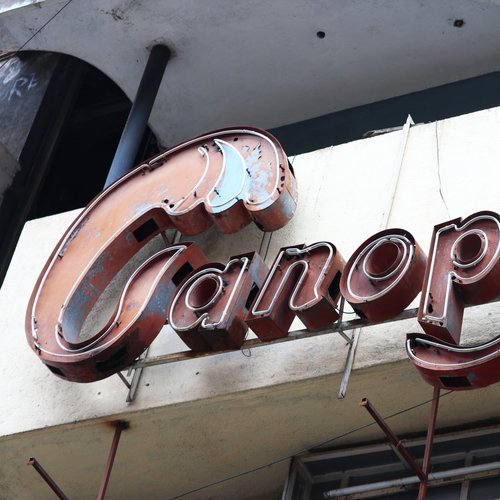
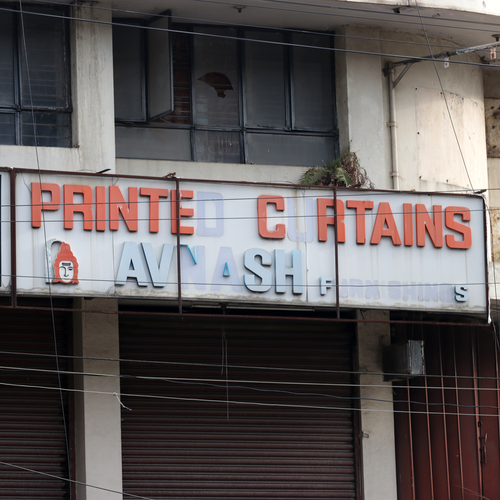
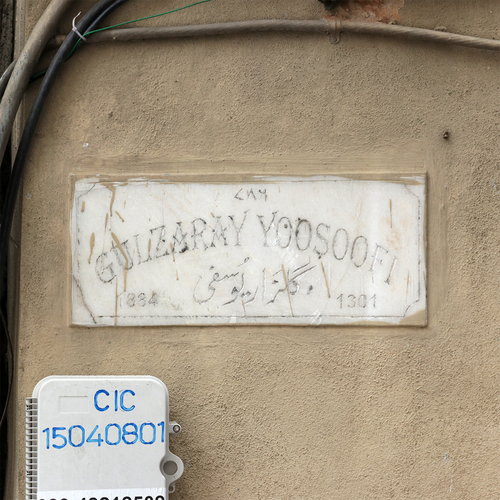
M.G. Road Type Walk
With stores that date back over a century, the erstwhile South Parade has a wealth of signs that help us see how the typographic character of Bangalore is changing. From photographers to newspaper publishers, banks to saree emporia, restaurants to bookshops — the wealth of signs in a striking variety of materials are a visual treat, which is easily missed in the cacophony of this busy market street. In this type walk organised by OwnPath, Pooja helped participants explore neighbourhood anew, see its multilingual signs in a whole new light, and discuss the beginnings of missionary-led printing in the city.
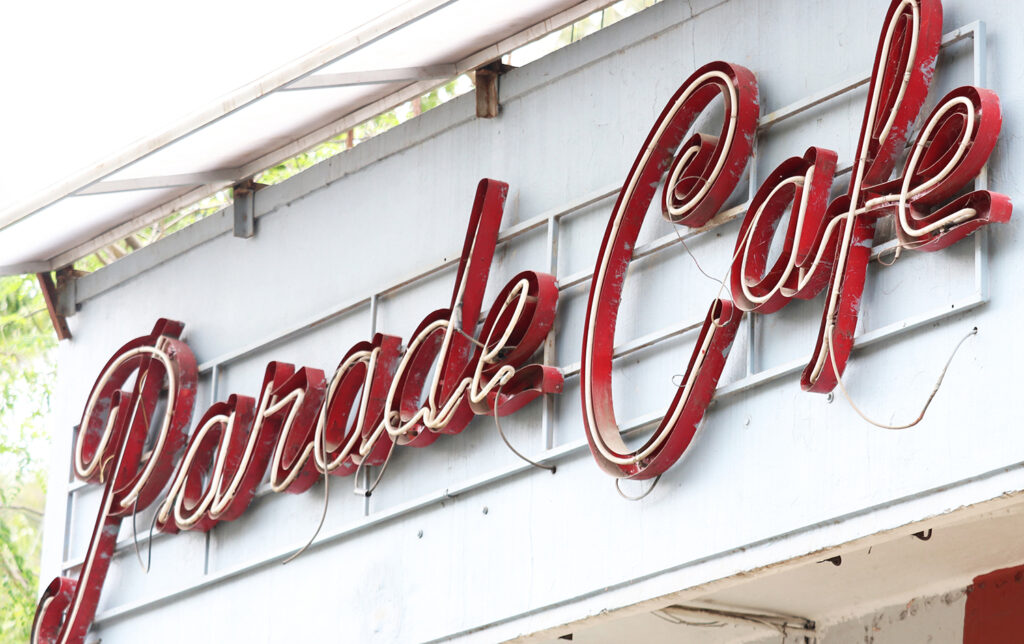
Nicholson Cemetery Type Walk
In this walk, participants took a stroll in Delhi’s Nicholson Cemetery to look at some of the oldest Latin letters to be seen in the city: ranging in styles from blackletter to grotesque to tuscan, some of them dating back almost two centuries. As the group spotted letters on gravestones, Pooja talked about the stories of the typographic styles, as well as the stories of those who are buried here. The protagonists, among others, include John Nicholson, on whom the cemetery is named; American founding father, Benjamin Franklin; and of course, the man who introduced moveable type to Europe, Johaness Gutenburg. This walk is a unique way to learn about the history of the letterforms we see everyday, and discover how deeply intertwined they are with the important events in world history. (Illustration by Sarthak Sinha)
Paharganj Type Walk & Show and Tell
The route of this walk followed one of the main market streets in Paharganj, a neighbourhood that has existed since the Mughal era and dates back to the early eighteenth century. The group would start and finish at two important landmarks built during the twilight of British rule in India: the Imperial theatre on one end, and New Delhi Railway Station on the other. Participants played a game of bingo to spot different styles of hand-painted signs, and were introduced to all the Indian and foreign scripts they encounter — over a dozen in total. As the sun set on Delhi, they got a chance to see scores of neon signs light up the market, learn about the history and science behind neon signs, and discuss their place in pop culture. The walk was complemented with a show-and-tell of books about Indian scripts, vernacular lettering and sign painting. Multiple editions of this walk were offered as Airbnb Experiences.